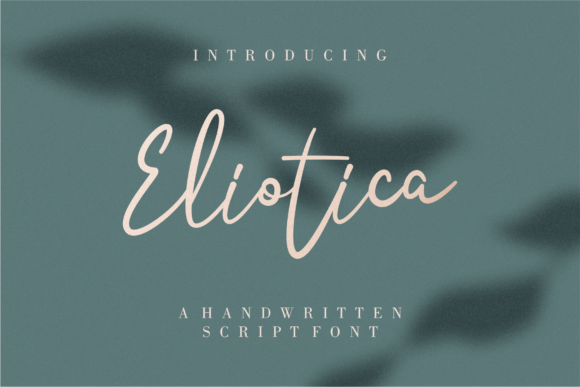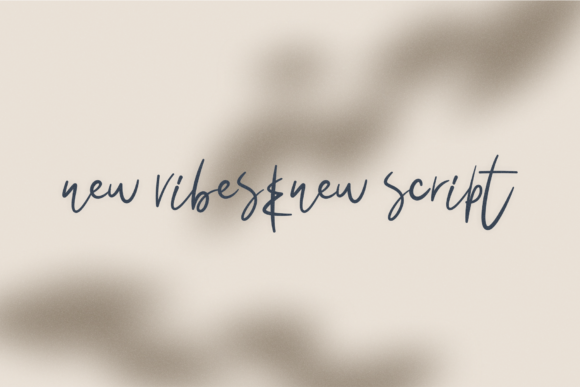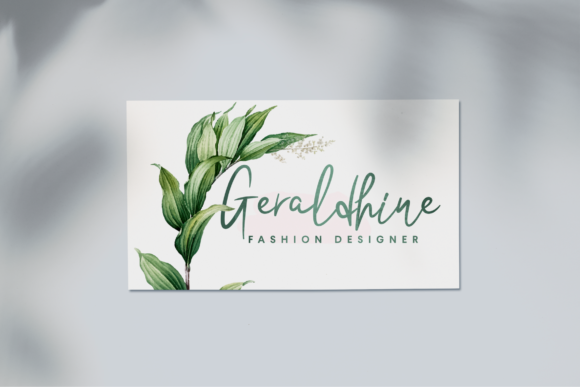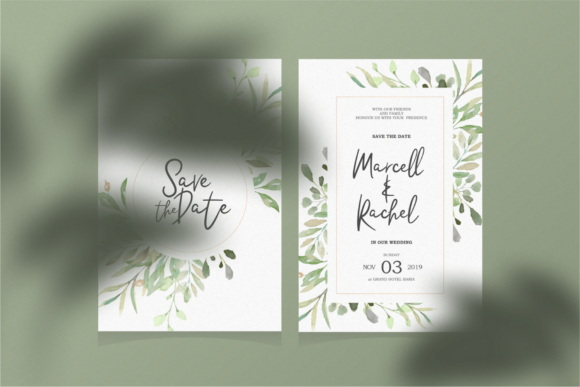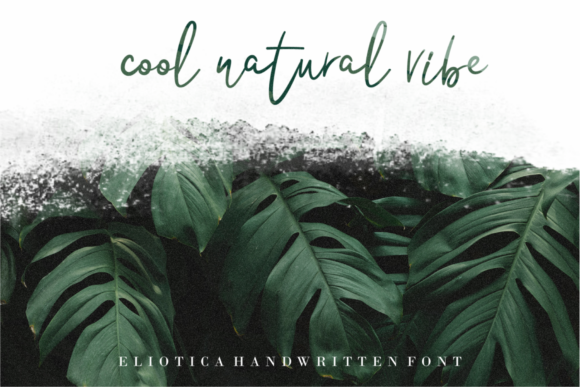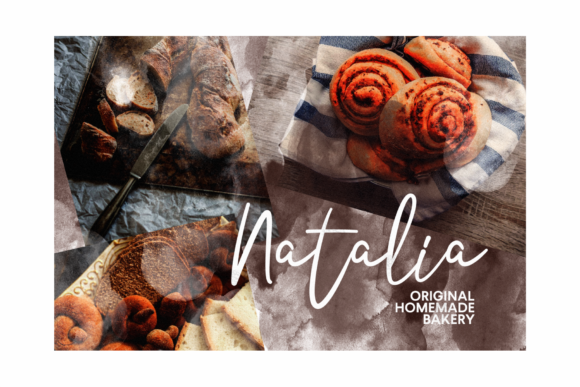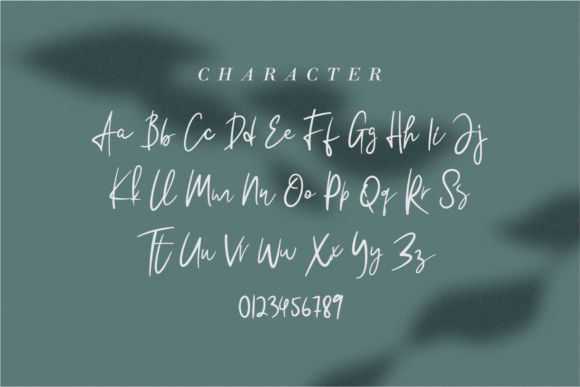
Eliotica Font
About Eliotica Font
Eliotica is a stunningly light handwritten font with a contemporary charm. Use it to add a special touch to any design project.